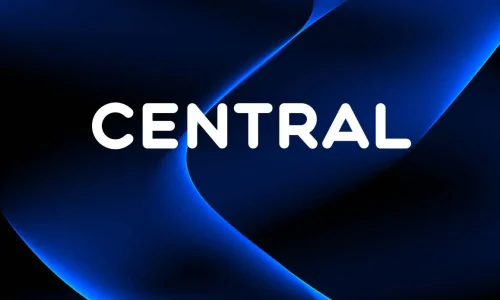
Couture Font was developed by Chase Babb. This stunning font belongs to the Sans-Serif font family. It is a very versatile font that can be used in both headlines and body text. The beauty of this Font is in its simplicity.
It has clean lines and a modern look that makes it perfect for use in fashion-related designs.
This typeface is best for everything from logos and branding to marketing materials and website designs. Source Code Pro Font is similar to this classy typeface.
| Name | Couture Font |
| Designer | Chase Babb |
| Style | Sans seirf |